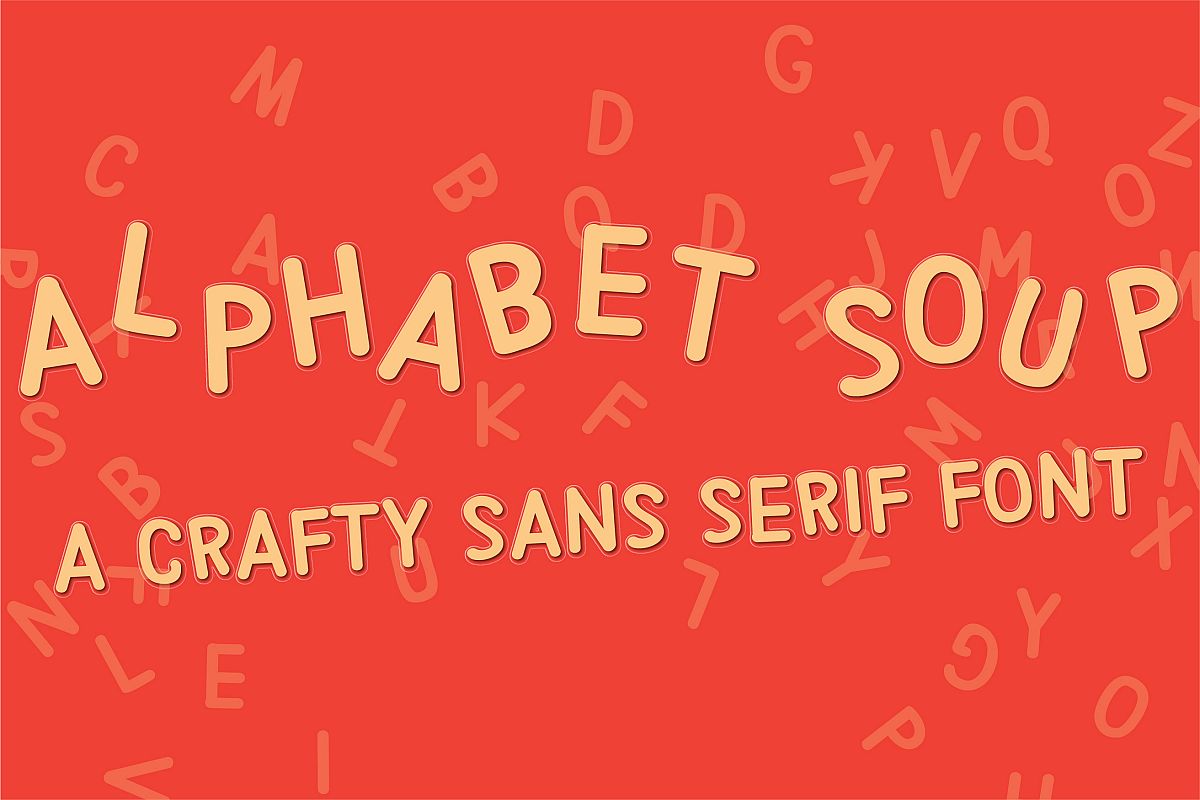
PN Alphabet Soup
This cute hand-crafted sans serif font doesn't have a true lowercase, rather it has two uppercases that are different from one another.